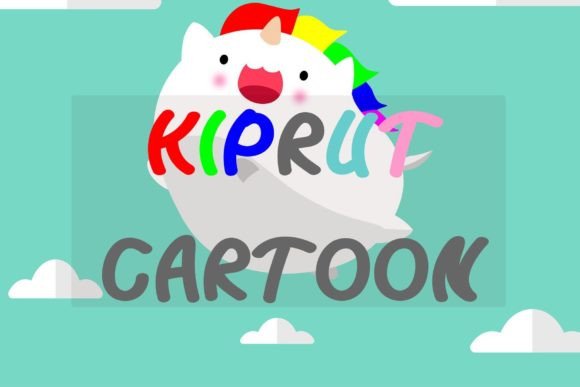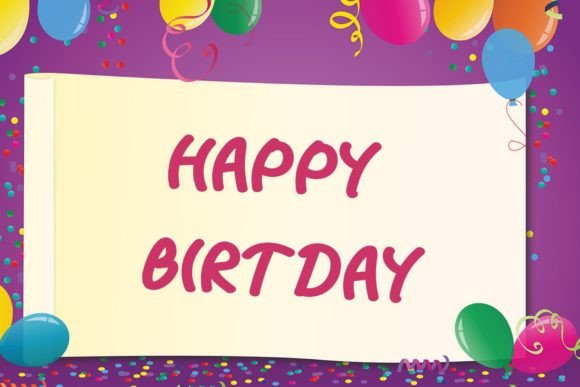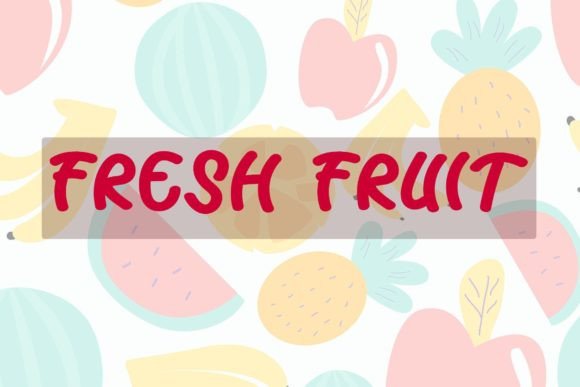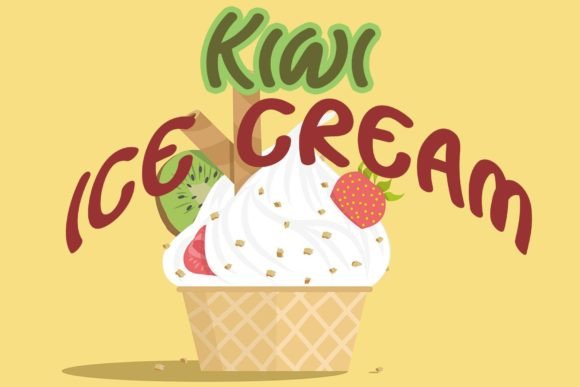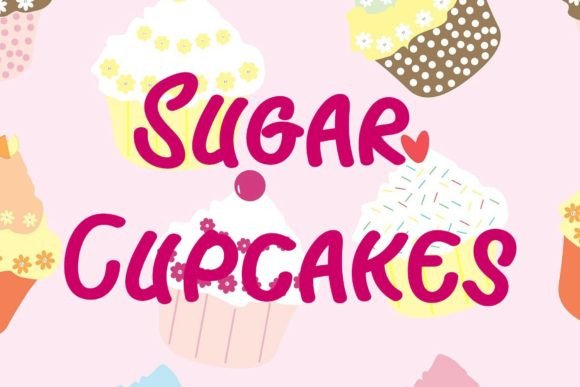
About Unicorn Font
“Unicorn” is more than just a font; it’s a delicately crafted handwritten typeface designed to infuse a cool and unique vibe into your creative projects. Carefully created to bring a touch of whimsy and charm, Unicorn is versatile, making it an excellent choice for a variety of designs, including letters, invitations, food product labels, titles, and more.
The delicate strokes and unique character of Unicorn lend themselves well to creating visually appealing letters. Whether you’re crafting personal correspondence or designing letterhead for a special occasion, Unicorn adds a distinctive and artistic flair that sets your letters apart.
Invitations take on a magical quality with the inclusion of Unicorn in your design toolkit. The handwritten charm of the font adds an element of warmth and personalization, making your invitations stand out and creating anticipation for the event.
Food products receive a creative boost with the addition of Unicorn to packaging and labels. The font’s playful yet refined style is well-suited for conveying a sense of uniqueness and quality, making it an ideal choice for gourmet products or those with a focus on artisanal craftsmanship.
Titles come alive with Unicorn, as the font brings a sense of creativity and individuality to your projects. Whether you’re working on a book cover, a magazine headline, or a digital presentation, Unicorn adds an element of surprise and delight that captivates the audience.
The beauty of Unicorn extends to a range of creative applications, making it a valuable asset for any project that demands a cool and unique aesthetic. Its effect is transformative, turning ordinary designs into extraordinary works of art.
Incorporate Unicorn into your creative projects and witness the enchanting effect it brings. This delicate handwritten font is not just a typeface; it’s a tool that elevates your designs, adding a touch of magic and personality. Let Unicorn be the enchanting element that sparks creativity and amazement in your visual expressions.